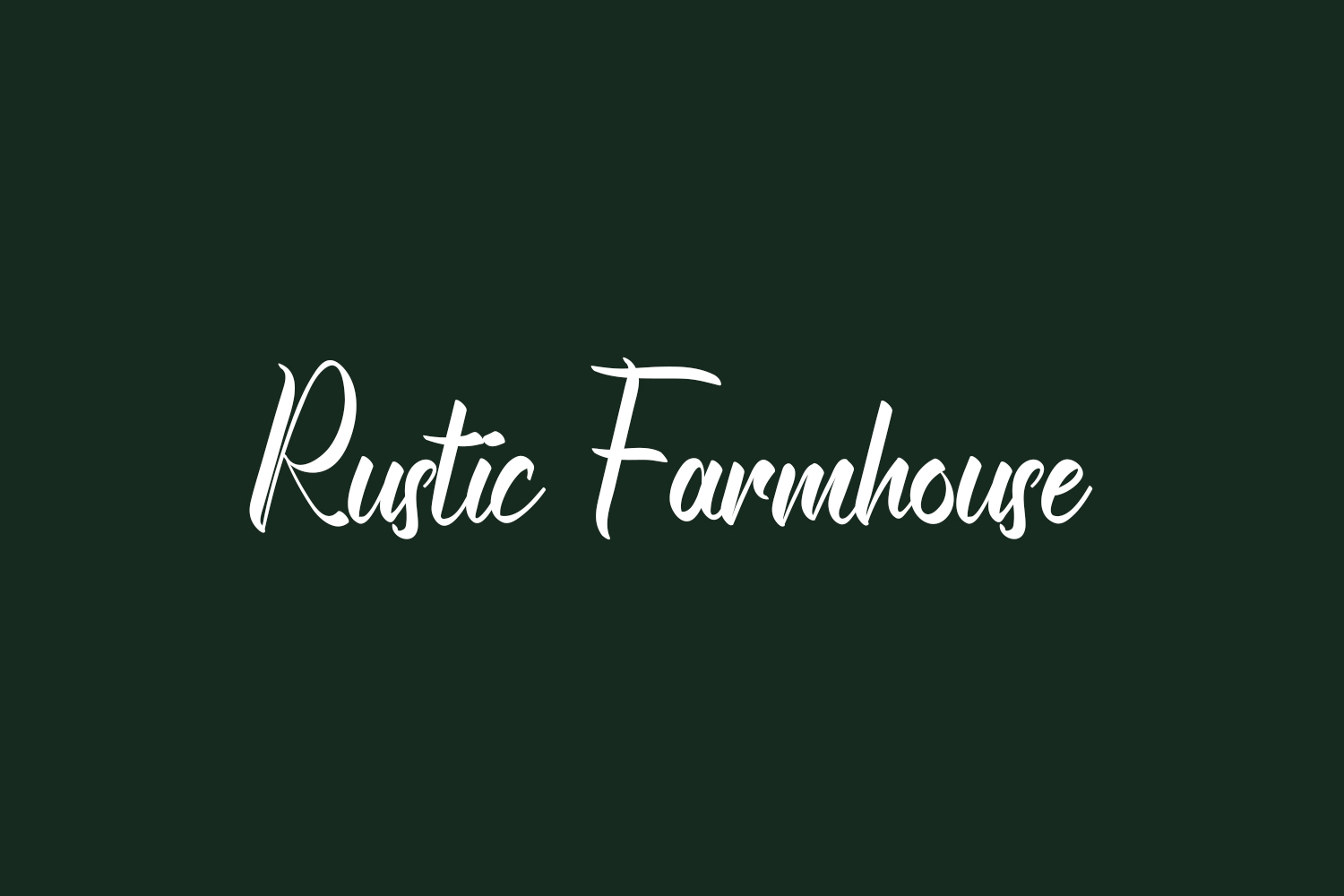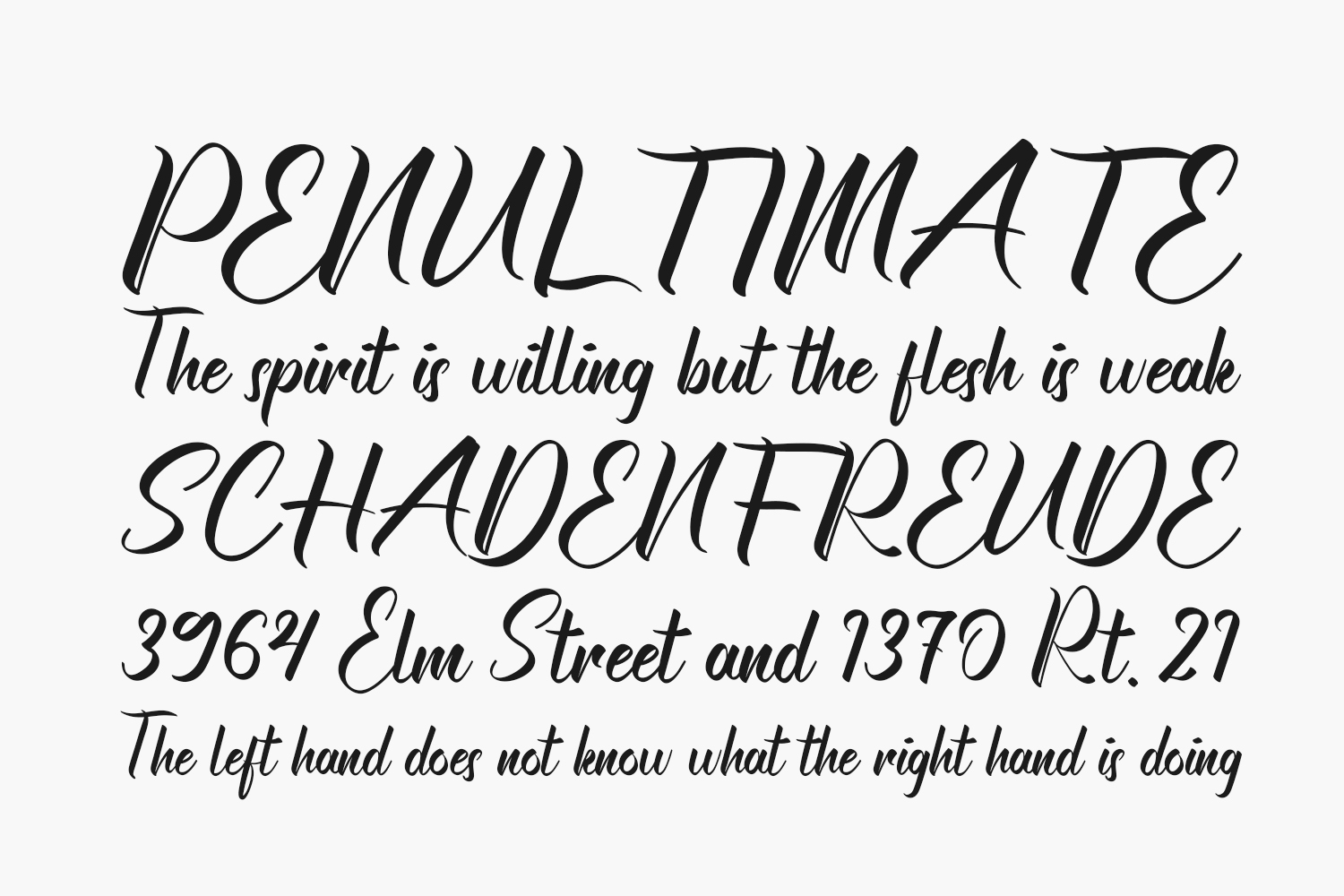
Introducing Rustic Farmhouse Free Font a specially crafted script font tailored to meet your business requirements. This versatile typeface is ideal for creating eye-catching flyers, elegant wedding invitations, memorable logos, impactful banners, heartfelt birthday cards, engaging social media posts, and captivating thumbnails. Rustic Farmhouse Free Font is free for personal use only. Please purchase the full version for commercial use.